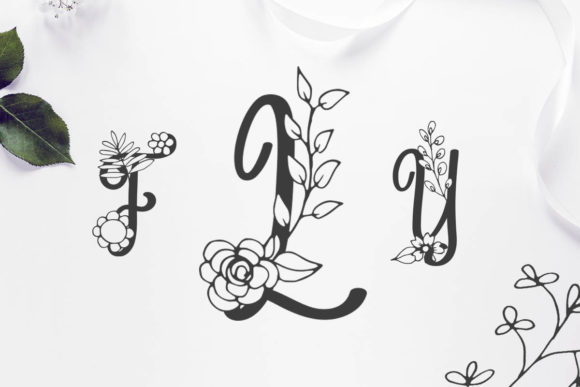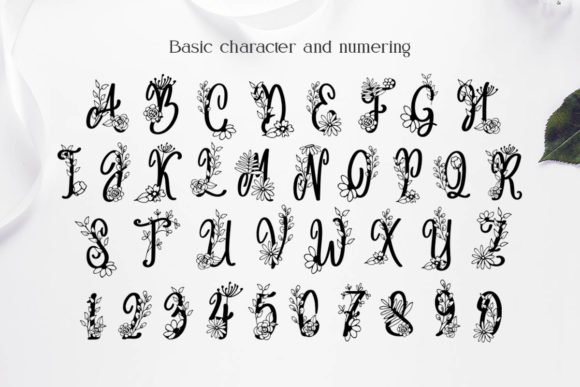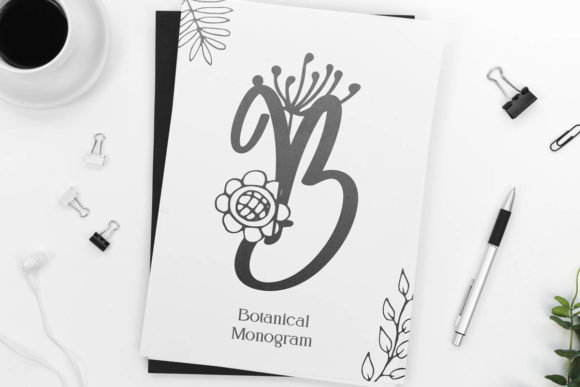
Introduction to Angelina Monogram Font
Angelina Monogram is a beautiful monogram font.
Fall in love with its authentic feel and use it to create gorgeous wedding invitations, beautiful stationary art, eye-catching social media posts, and cute greeting cards .
Key Features of Angelina Monogram Font
Why Choose Angelina Monogram Font?
Angelina Monogram Font offers exceptional quality and versatility, making it a valuable addition to your design toolkit. Whether you’re creating for personal projects or commercial use, Angelina Monogram Font delivers professional results.